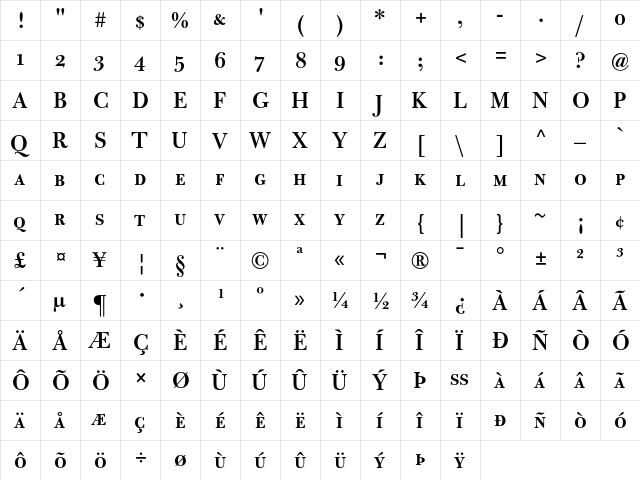
Bulmer MT SemiBold Small Caps & OldStyle Figures
Design Context for Bulmer MT Typeface
Bulmer MT brings classic typographic sensibility to the table — its serifs and measured letterforms reflect centuries of print heritage. Its bold stroke weight gives it real presence on the page.
Pro Tip: Use Bulmer MT for editorial body copy and considered headline work. Pair with a neutral sans for UI elements or captions to create a classic hierarchy.